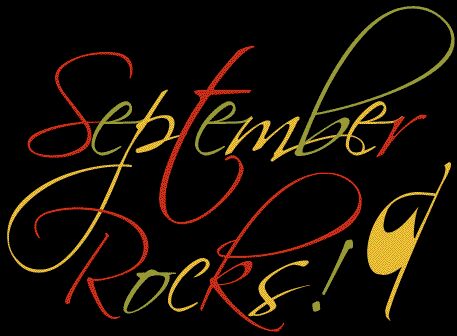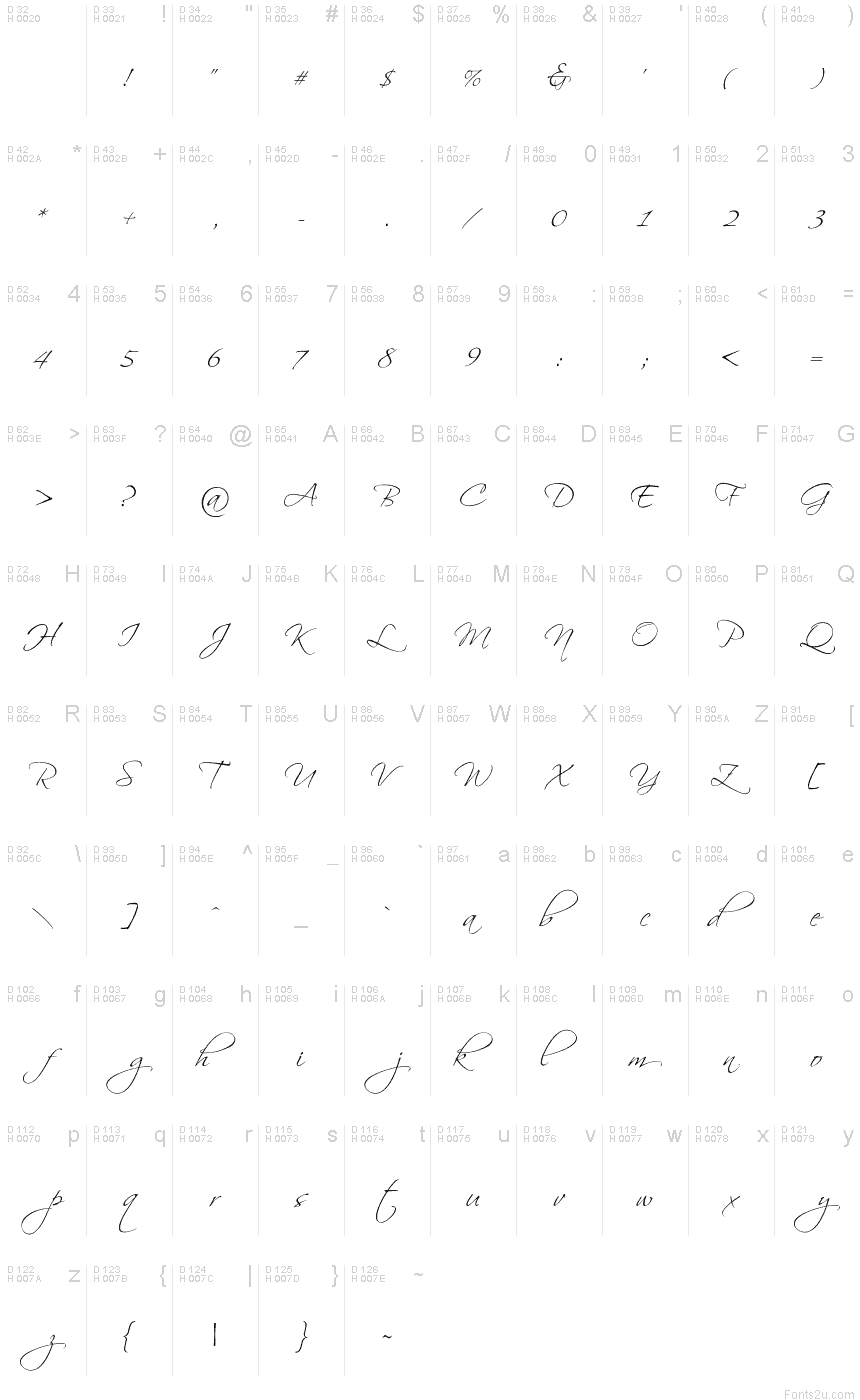
Scriptina
Scriptina by Apostrophic Labs is a free formal handwritten script font with long, airy strokes and the kind of sweeping loops that feel lifted from invitation calligraphy. The letters lean lightly and connect with a quick, graceful rhythm, while oversized flourishes on the capitals give the font its unmistakably dressy tone.
It works well anywhere you want a name or short phrase to carry the page: wedding stationery, boutique branding, beauty packaging, magazine cover lines, and title cards. As a free font, Scriptina makes most sense in brief display settings, monograms, or signature-style headings, where those generous swashes have room to arc and trail.